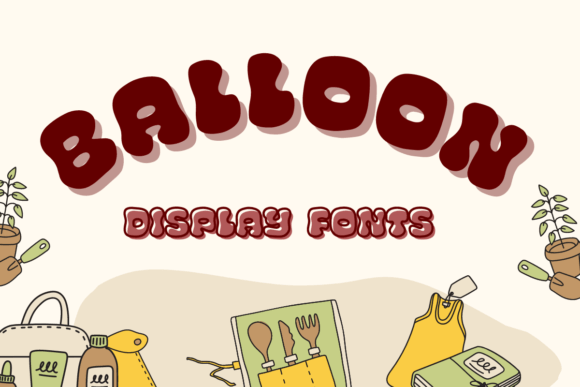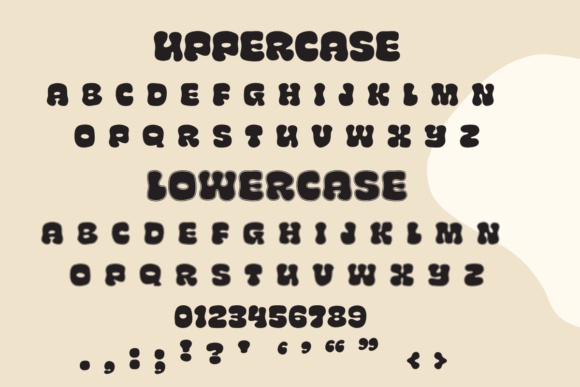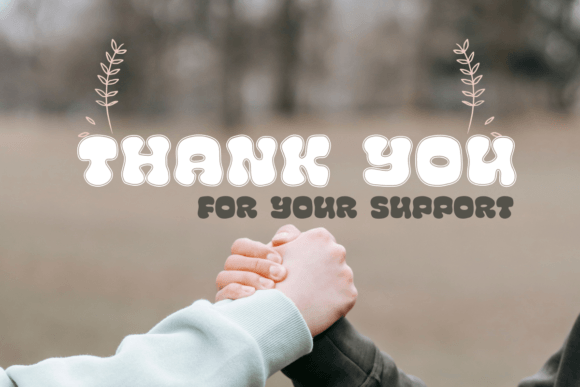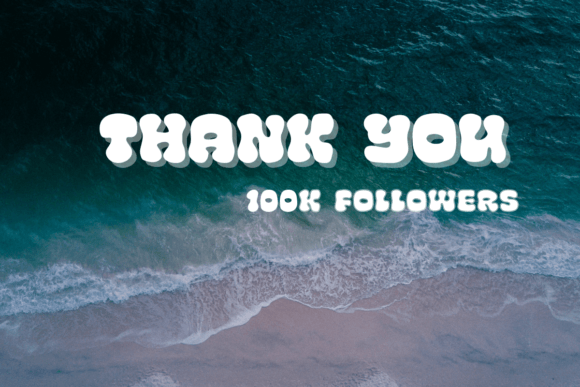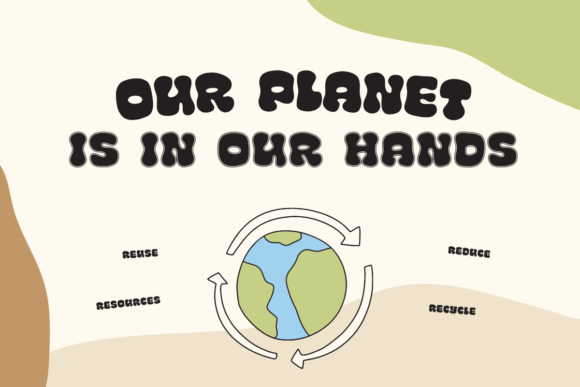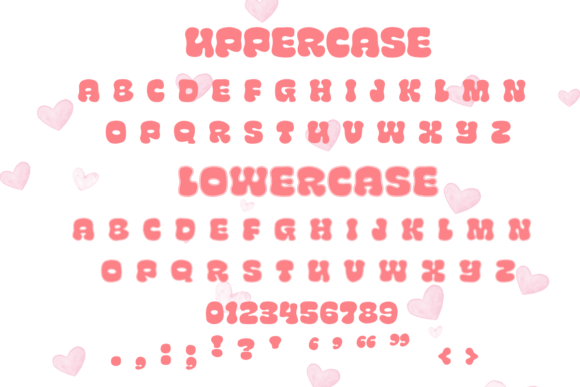
Discovering the Joy of Handwritten Notes
Who among us hasn’t scribbled down a note or two on a piece of paper, capturing a fleeting thought or idea that refused to be ignored? There’s something special about the tactile experience of putting pen to paper, isn’t there? It’s a moment that sparks creativity and sets the imagination free.
For those who love this feeling, we have a delightful find to share with you – the Balloon Font. This charming display font is perfect for taking notes, writing a diary, or crafting heartfelt greeting cards. But its versatility doesn’t stop there – it’s also ideal for designing banners, social media posts, and more.
Balloon Font Key Features
- Character Set: The font includes a large character set, including uppercase and lowercase letters, numbers, punctuation marks, and special characters, as well as a range of ligatures and swashes.
- Unique Characteristics: The font features a distinctive, playful balloon-like design, with rounded shapes and flowing lines that evoke a sense of whimsy and fun.
- Font Weight and Style: The font comes in a range of weights and styles, including regular, bold, italic, and bold italic, allowing designers to achieve a wide range of visual effects.
Designer Review: Balloon Font
When I first came across the Balloon Font, I was immediately struck by its whimsical and playful vibe ✨. The rounded shapes and gentle curves give the font a sense of friendliness that’s perfect for children’s books, greeting cards, or any other design project that needs a lighthearted touch.
One of the things I love about the Balloon Font is its versatility. It’s available in a range of weights, from light to bold, which makes it easy to use in different contexts. The font also has a nice, open feel that makes it easy to read, even at smaller sizes.
- Whimsical and playful vibe ✨
- Available in a range of weights
- Open feel makes it easy to read
- May not be suitable for formal or professional designs
- Can appear childish if not used thoughtfully
- Limited to a single style (no italic or condensed versions)
Overall, the Balloon Font is a great choice for designers looking to add a playful touch to their projects. While it may not be suitable for every design context, it’s a versatile and easy-to-use font that’s sure to delight.
Use Balloon Font to create eye-catching headings, add a playful touch to your designs, or create a whimsical atmosphere.
Common use cases include social media graphics, party invitations, and children’s book illustrations.